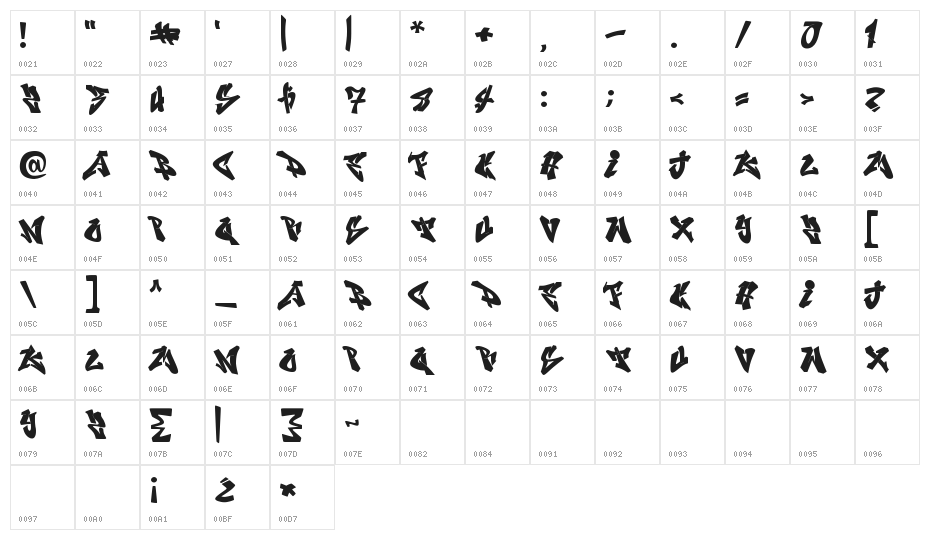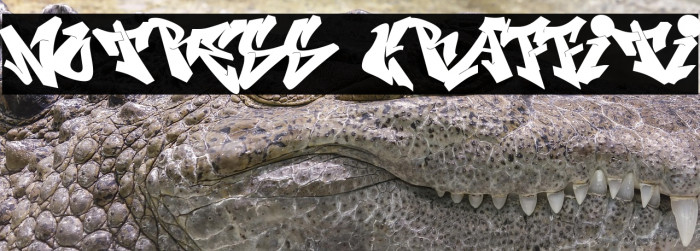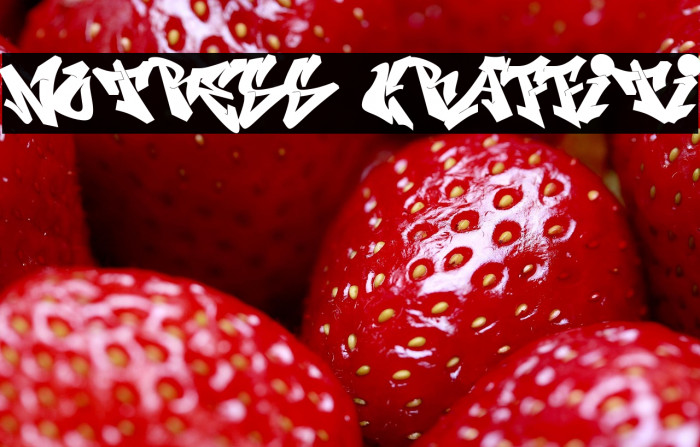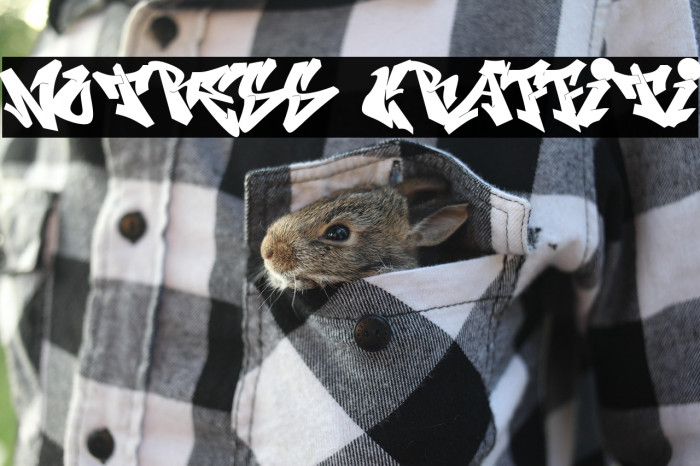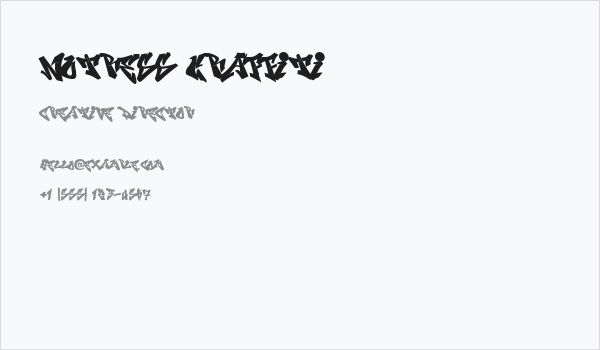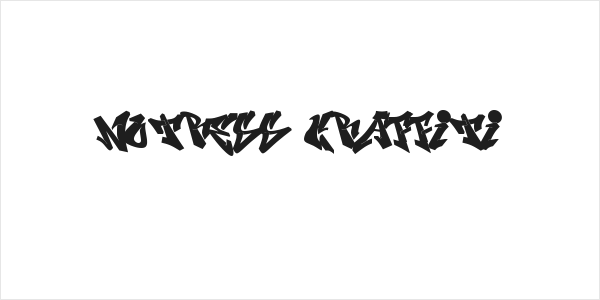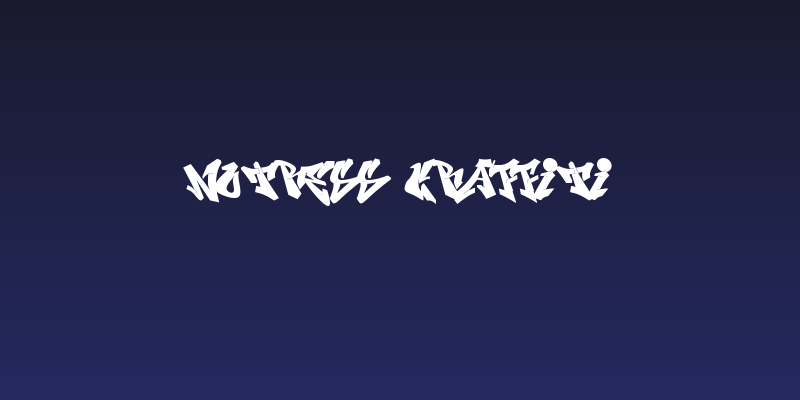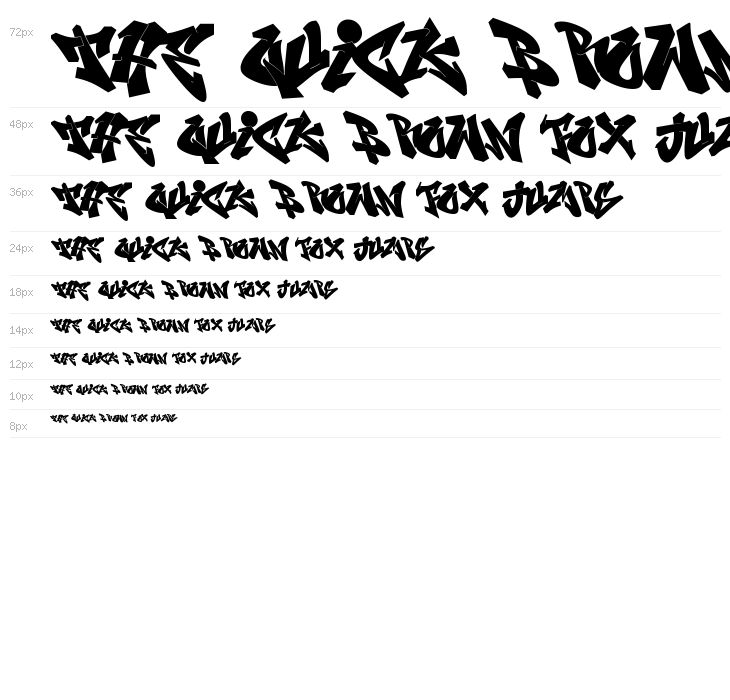
Notress Graffiti Font
Notress Graffiti Description
This graffiti-style font is bold and expressive, characterized by its angular and dynamic letterforms. The letters are heavily stylized with sharp edges and a sense of movement, reminiscent of street art and urban culture. The uppercase and lowercase letters maintain a consistent aesthetic, with a strong emphasis on individuality and flair. Numbers and special characters follow the same design principles, adding to the font's cohesive look. The overall appearance is striking and energetic, making it ideal for projects that require a bold statement.
| Proposed Projects | Ideal for urban-themed designs, streetwear branding, music album covers, and event posters. |